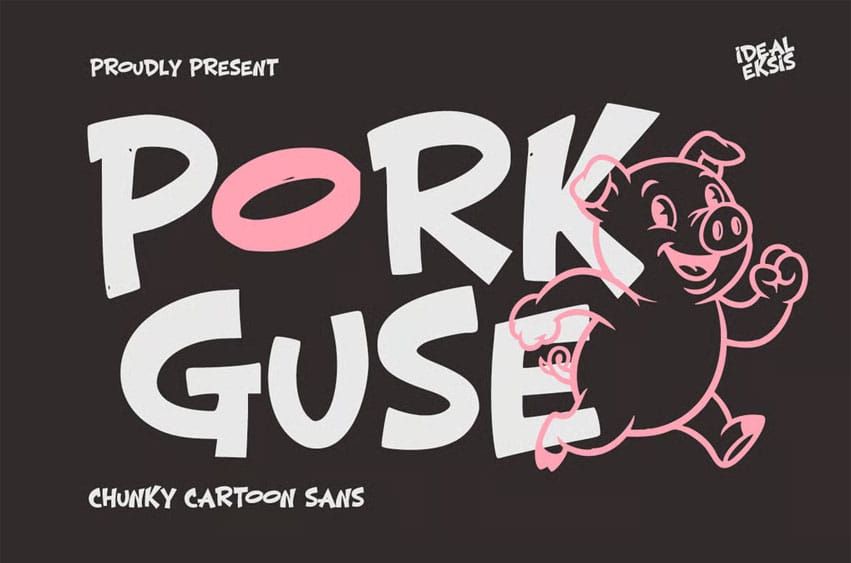
Pork Guse Font Dive into the playful world of Pork Guse, a chunky cartoon sans-serif font bursting with personality and fun! Its bold, hand-drawn aesthetic and slightly irregular lines give it an energetic, friendly vibe perfect for grabbing attention. Ideal for children’s books, vibrant branding, playful packaging, game titles, or any design project that needs a touch of lighthearted charm and a strong visual presence.
Pork Guse brings a lively, approachable feel to headlines, logos, and display text, ensuring your message is delivered with a smile.